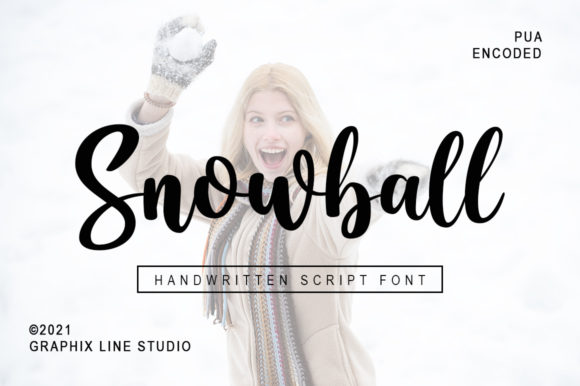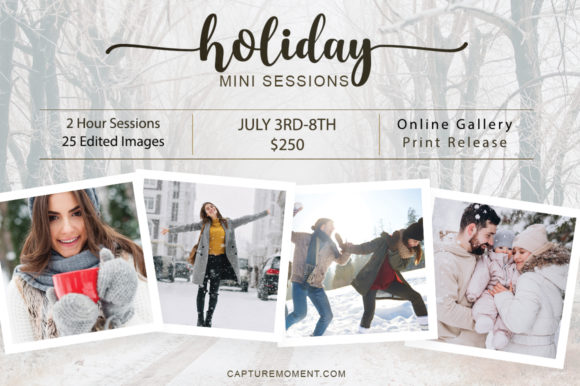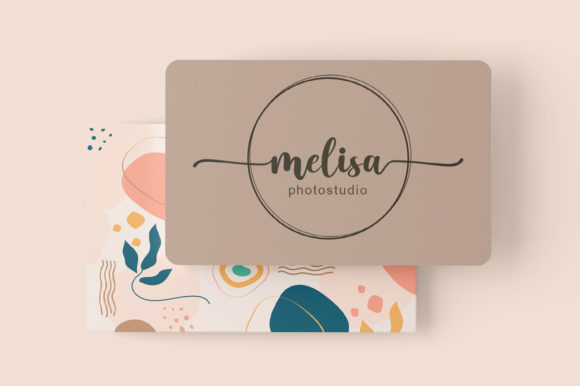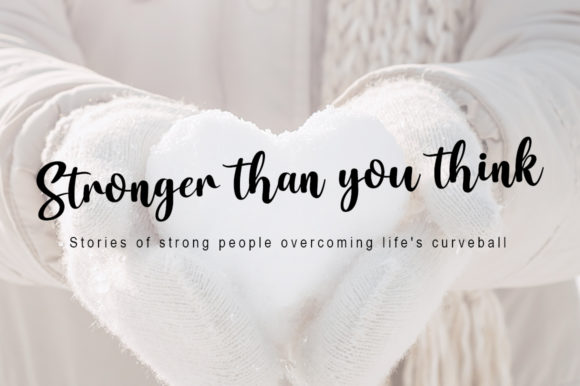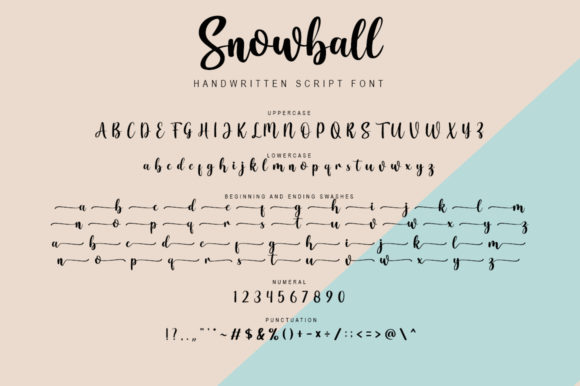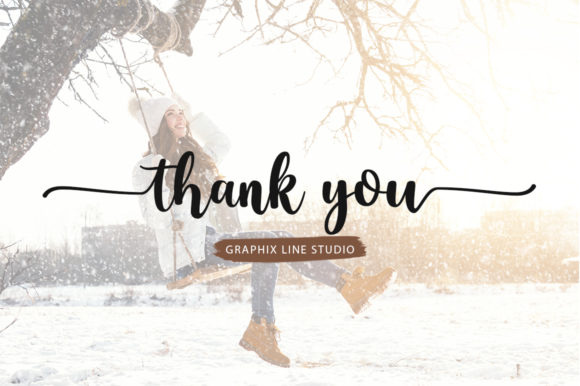
Snowball Font
About Snowball Font
Snowball is a delightful and elegant handwritten font that exudes a sense of delicacy and charm. With its well-rounded and distinct letterforms, Snowball adds a touch of sophistication to any design project. From wedding invitations to branding materials, this font is a true masterpiece that will elevate your creations.
One of the standout features of Snowball is its refined and graceful lettering. Each character is meticulously crafted with precision and care, resulting in a harmonious and balanced typeface. The smooth curves and gentle strokes create a sense of elegance and grace, making Snowball perfect for designs that require a touch of sophistication and refinement.
The versatility of Snowball is another aspect that makes it highly desirable. It can be used in a wide variety of projects, including wedding invitations, thank you cards, branding materials, quotes, social media graphics, and more. Whether you’re aiming for a romantic and ethereal aesthetic or a modern and stylish look, Snowball adapts effortlessly to suit your creative vision.
With its PUA (Private Use Area) encoding, Snowball allows easy access to a wide range of glyphs and swashes. This means you can add decorative elements, alternate letterforms, and stylish flourishes to your designs with convenience and flexibility. The availability of these extra glyphs and swashes enhances the versatility of Snowball, enabling you to create truly unique and captivating compositions.
When used in wedding invitations, Snowball brings a sense of elegance and refinement to the design. Its delicate strokes and well-balanced letterforms create a romantic and sophisticated atmosphere, setting the tone for a memorable event. Additionally, the variety of swashes and glyphs provide ample opportunities for customization, allowing you to tailor the font to suit the couple’s unique style.
In branding projects, Snowball adds a touch of elegance and class. Its timeless and classic appeal makes it suitable for a wide range of industries, including beauty, fashion, lifestyle, and more. Whether used in logos, packaging, or promotional materials, Snowball captures attention and creates a lasting impression.
In conclusion, Snowball is a delicate and elegant handwritten font that showcases well-rounded and distinct letterforms. Its versatility, along with its PUA encoding, allows for endless creative possibilities. Embrace the beauty and charm of Snowball in your designs and let it transform your projects into true masterpieces.